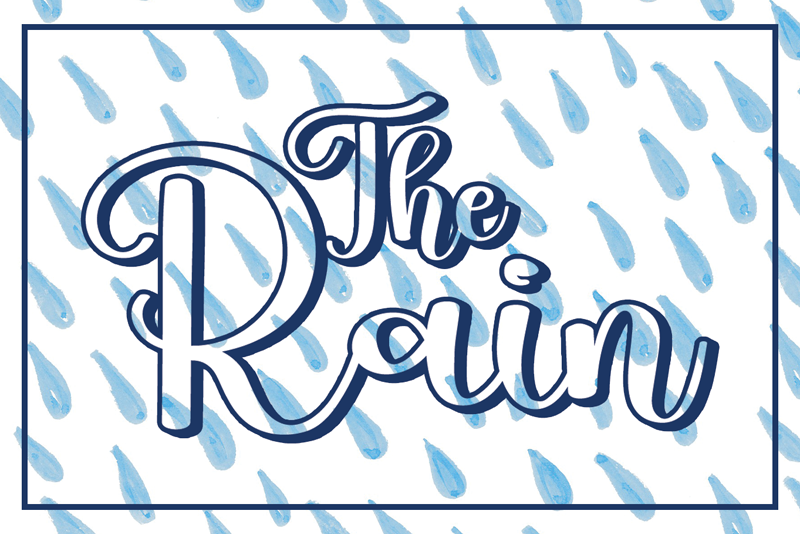
Font name: | The Rain |
Author: | Luluk Surotul |
Note by Luluk Surotul | |
The Rain feels equally charming and elegant. It looks stunning on wedding invitations, thank you cards, quotes, greeting cards, logos, business cards and every other design which needs a handwritten touch. Attention : The Rain handwriting Font is prohibited to use this font for commercial purposes or for profit without the permission of the author/admin, without being known to use this font without permission, will be subject to sanctions 5x the specified price. This font is used only for demos (Demo license) If you want to use this font for commercial use please contact email: elllulukstudio123@gmail.com or click the link below: https://www.creativefabrica.com/product/the-rain-4/ref/761303/ If you want to see more other fonts, please click: https://www.creativefabrica.com/designer/el_hotcig/ref/761303/ Any donations are very appreciated. Paypal account for donation: https://www.paypal.com/paypalme/luluk783 thanks. |